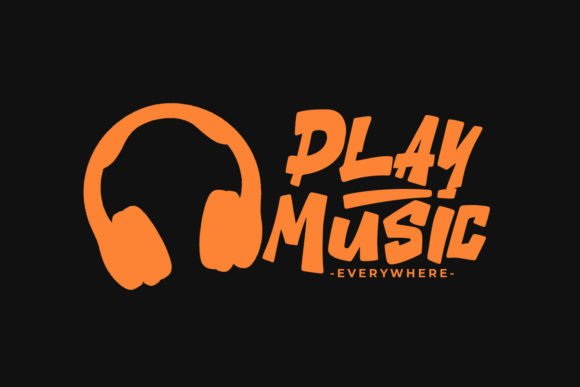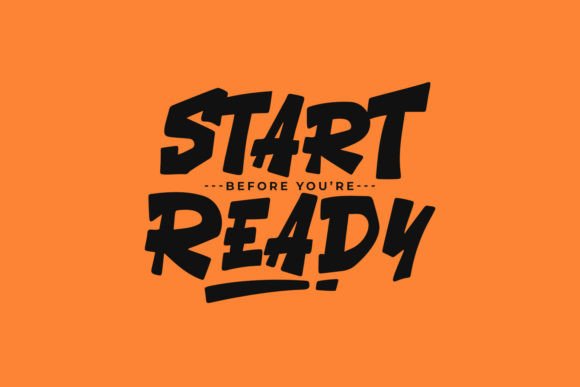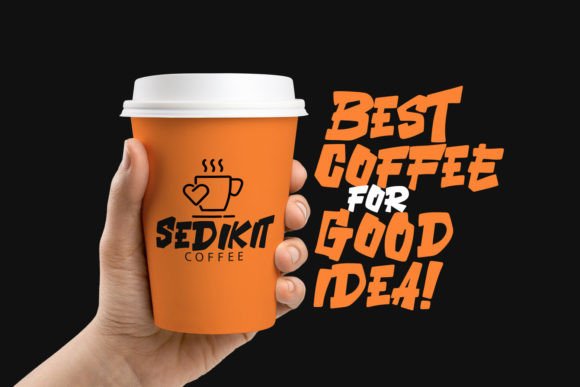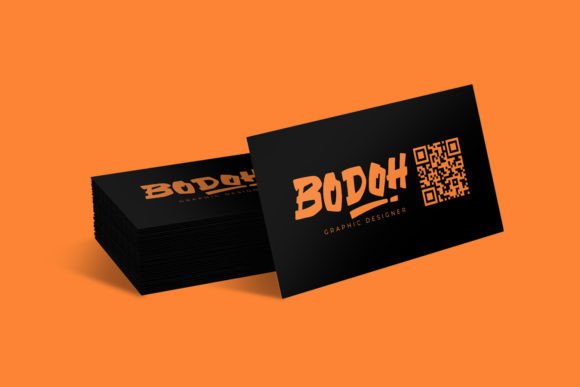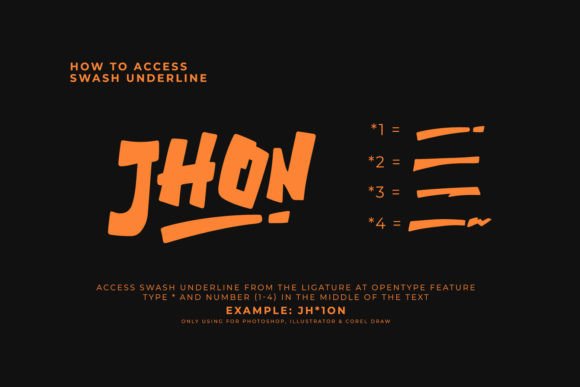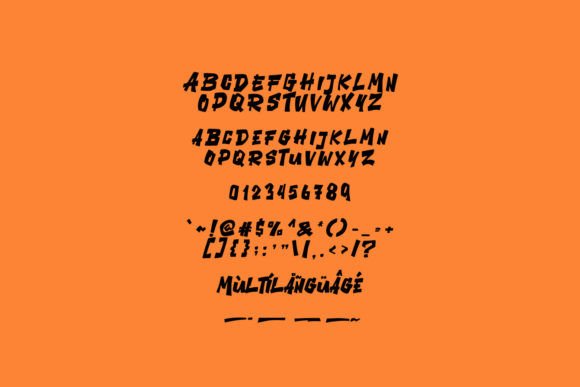
Introducing Bigdex Font: The Ultimate Modern Bold Display Font
Are you tired of using the same old fonts for your designs? Look no further! Bigdex Font is here to revolutionize your creative projects with its modern bold display style. This quirky handwritten font is perfect for making a statement and adding a touch of personality to your work.
What is Bigdex Font?
Bigdex Font is a modern bold display font designed to make your designs stand out. Its unique and quirky handwritten style makes it perfect for a wide range of projects, from posters and logos to magazines, book covers, and banners. With Bigdex Font, you can add a touch of sophistication and elegance to your work, while also conveying a sense of playfulness and creativity.
Key Features of Bigdex Font
- Modern Bold Display Style: Bigdex Font boasts a modern bold display style that is sure to grab attention.
- Quirky Handwritten Design: The font’s quirky handwritten design adds a touch of personality to your work.
- Versatile: Bigdex Font can be used for a wide range of projects, from posters and logos to magazines, book covers, and banners.
- Easily Matchable: The font can easily be matched to an incredibly large set of projects, making it a great addition to your creative toolkit.
Bigdex Font is perfect for designers and crafters who want to add a touch of personality to their work. Whether you’re creating a logo, poster, or social media graphic, this font is sure to make your design stand out. Its modern bold display style and quirky handwritten design make it perfect for a wide range of projects, from:
- Magazines and book covers
- Banners and signs
- Social media graphics and ads
Why Choose Bigdex Font?
There are many reasons why Bigdex Font is the perfect choice for your design projects. Here are just a few:
- Unique and Quirky Design: Bigdex Font has a unique and quirky design that will set your work apart from the rest.
- Highly Versatile: The font can be used for a wide range of projects, making it a great addition to your creative toolkit.
- Easily Readable: Despite its bold and quirky design, Bigdex Font is easily readable, making it perfect for use in a variety of contexts.
- Supports Multiple Languages: The font supports multiple languages, making it a great choice for designers and crafters who work with international clients.
- Experiment with Different Sizes and Colors: Bigdex Font looks great in a variety of sizes and colors, so don’t be afraid to experiment and find the perfect combination for your design.
- Pair it with Other Fonts: Bigdex Font pairs well with a variety of other fonts, so try pairing it with some of your favorite fonts to create a unique and interesting design.
- Use it to Add Emphasis: Bigdex Font is perfect for adding emphasis to your design. Use it to highlight important information or to draw attention to a particular element.
In conclusion, Bigdex Font is a modern bold display font that is perfect for designers and crafters who want to add a touch of personality to their work. Its unique and quirky handwritten design makes it perfect for a wide range of projects, from posters and logos to magazines, book covers, and banners. With its highly versatile design and easily readable style, Bigdex Font is sure to become a staple in your creative toolkit. So why wait? Download Bigdex Font today and start creating stunning designs that will leave a lasting impression!